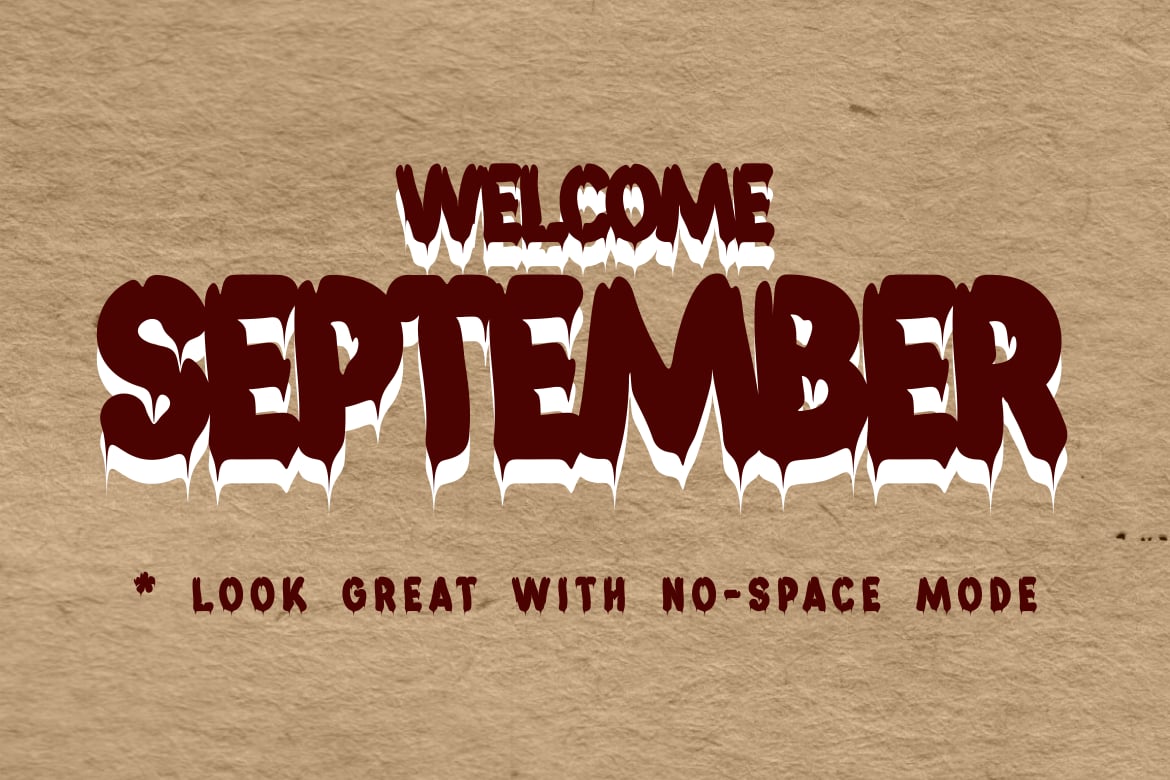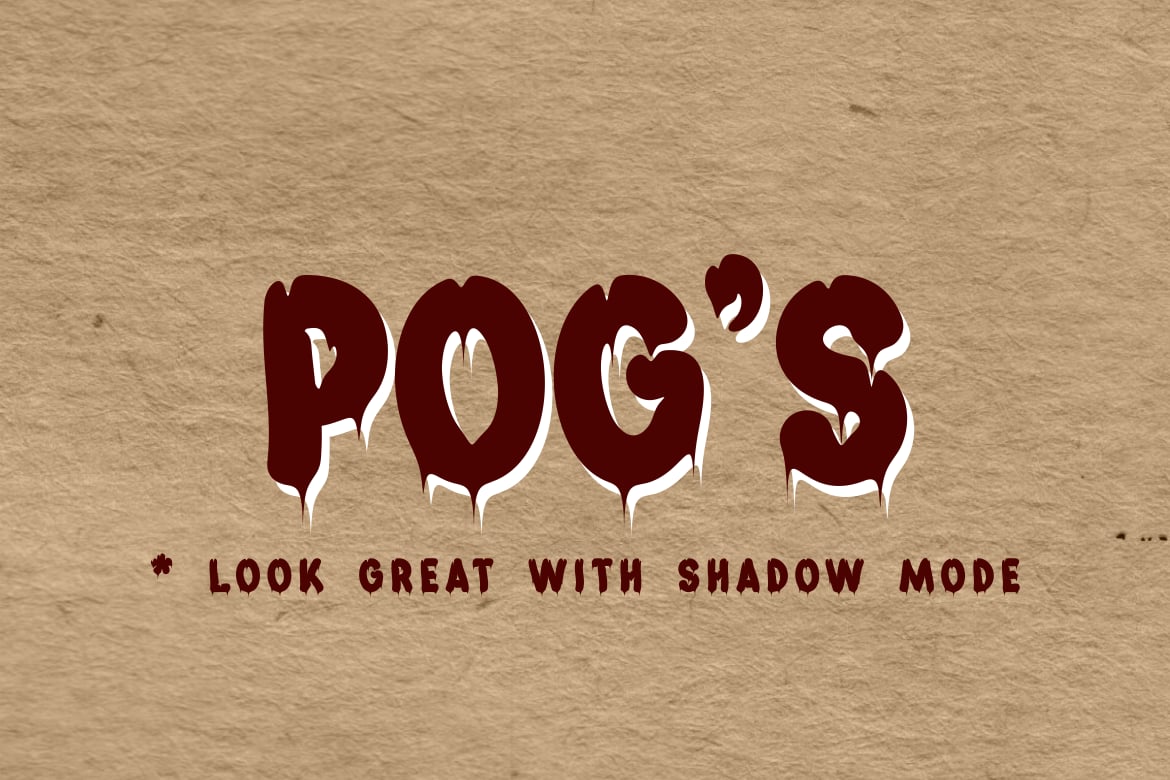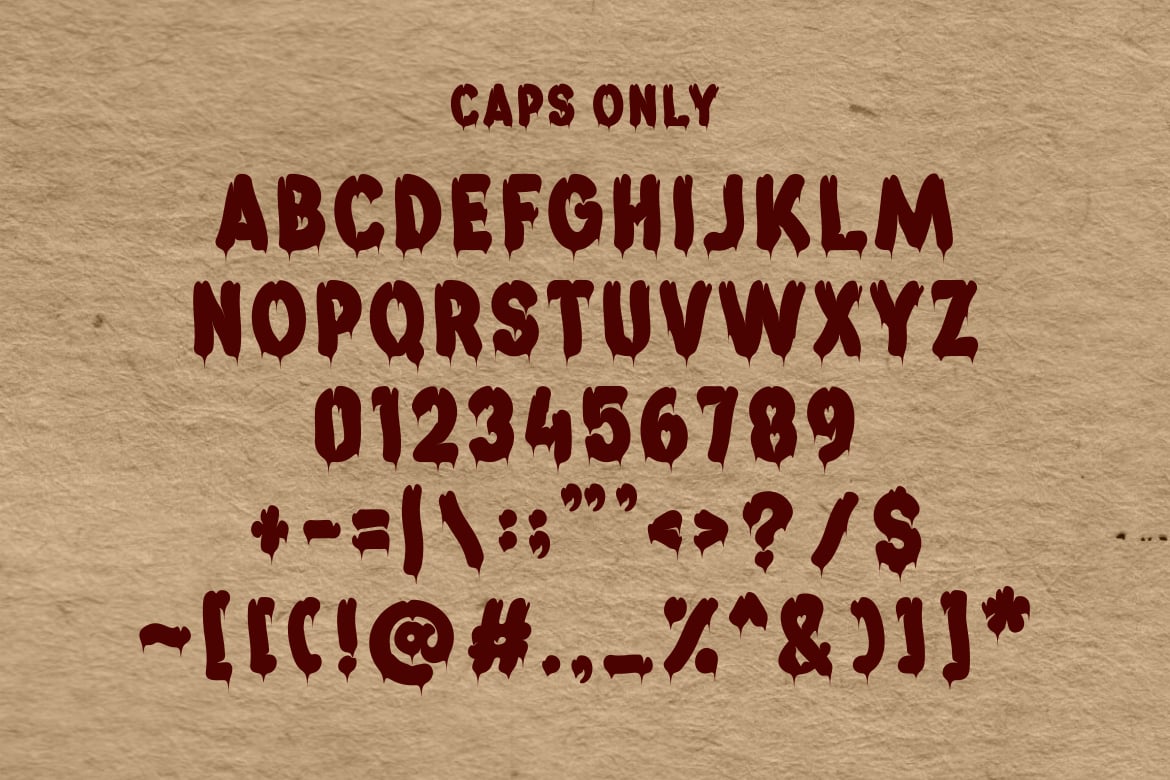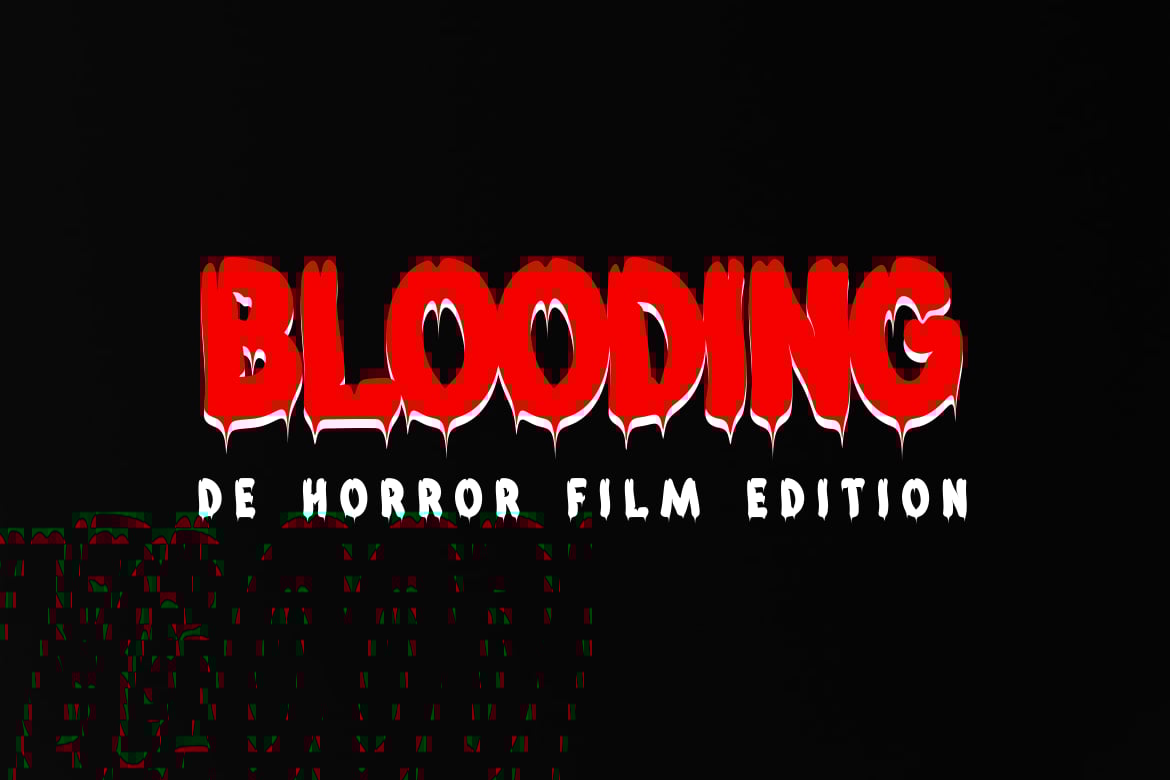
Pog’s Halloween Font
Towards September which is full of Halloween holidays, now pog’s font family presents the “Halloween edition”, hoping to give a festive color this year’s Halloween. and add to greeting cards with this font as well as social media posts and other Halloween creations.